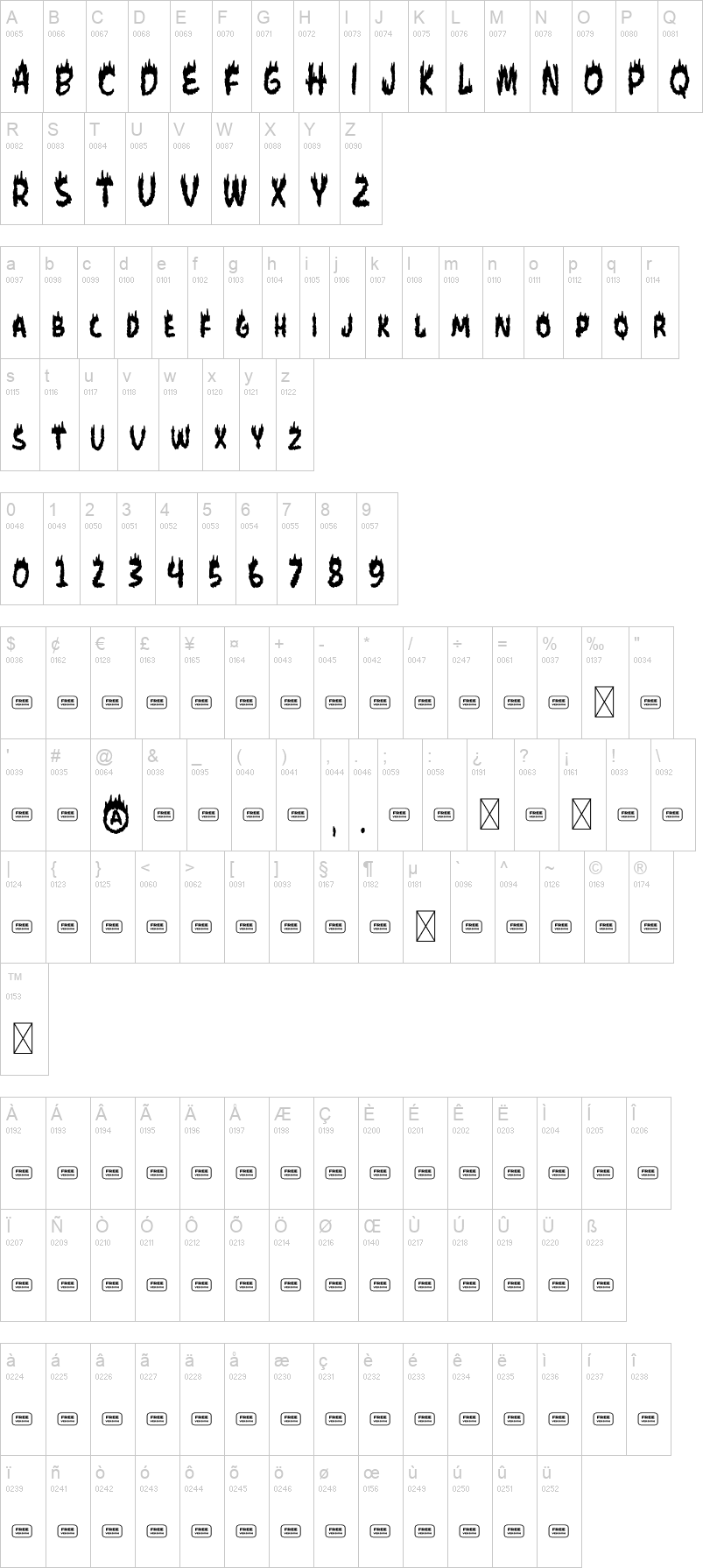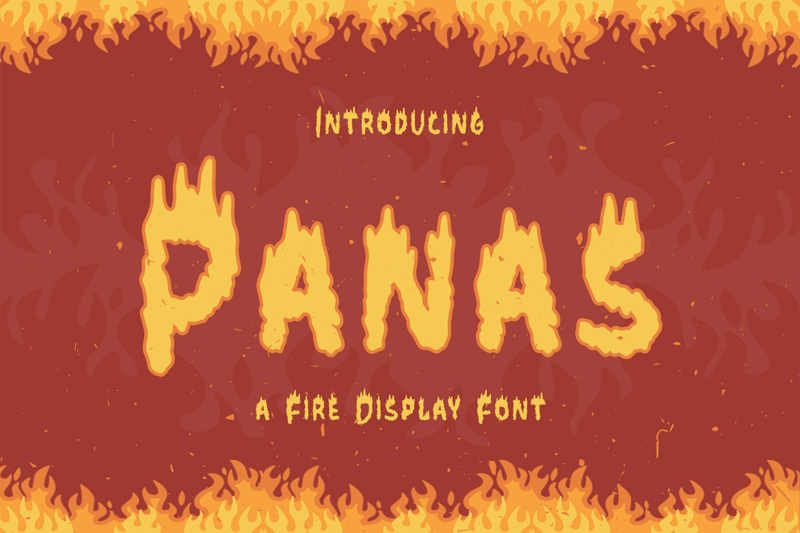
Note of the authorPanas is a fiery and fun display font that has burning feel.
Panas has a fiery effect, its the perfect font for giving any design a fiery and burning feel, spices brand, or maybe spicy delicious food!